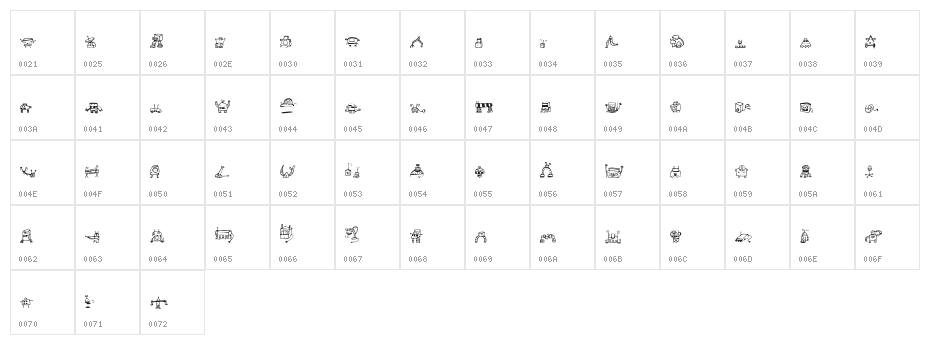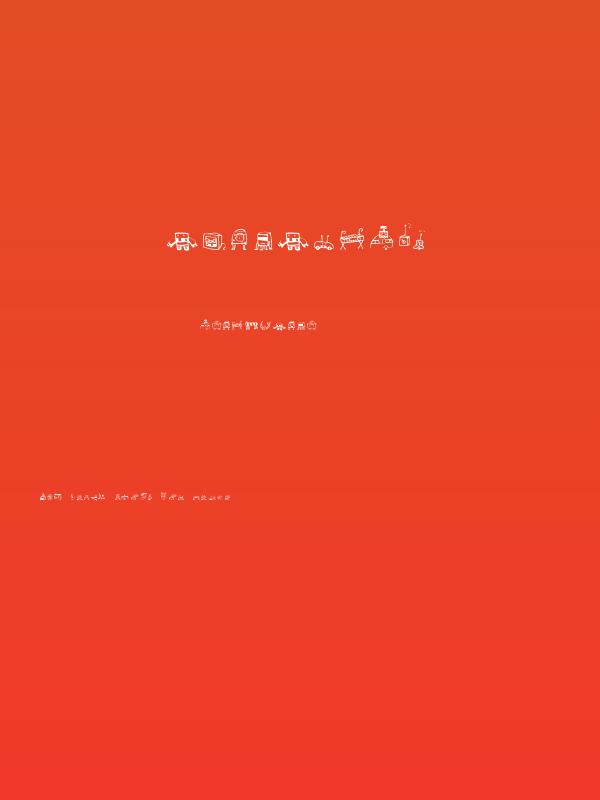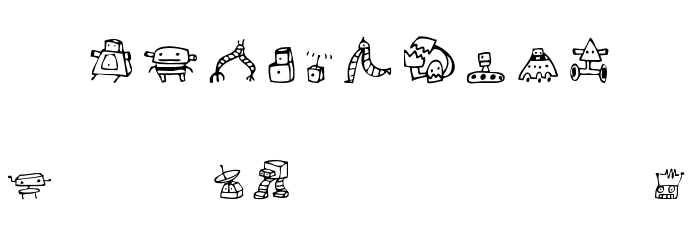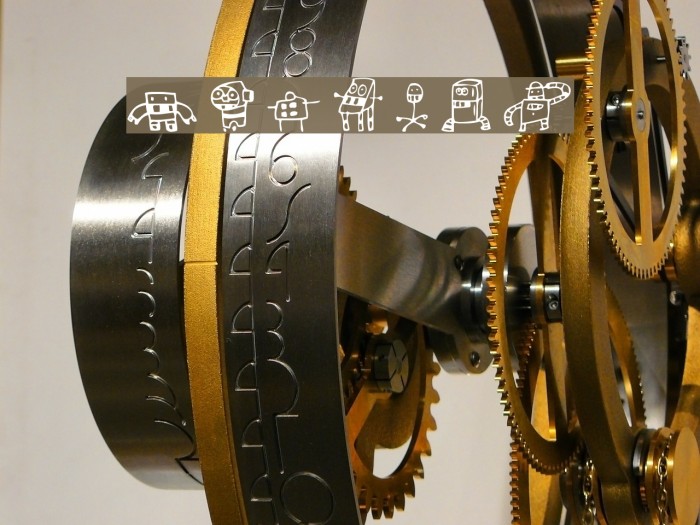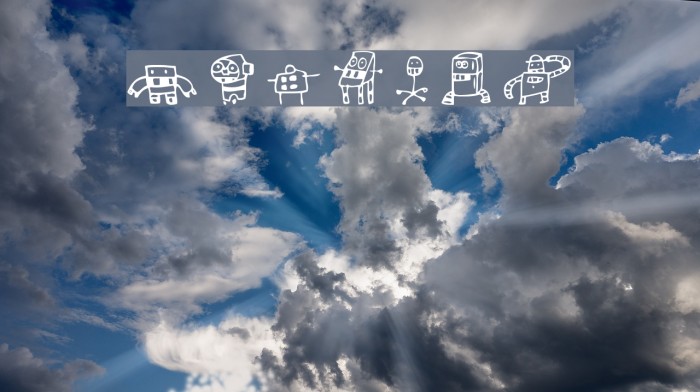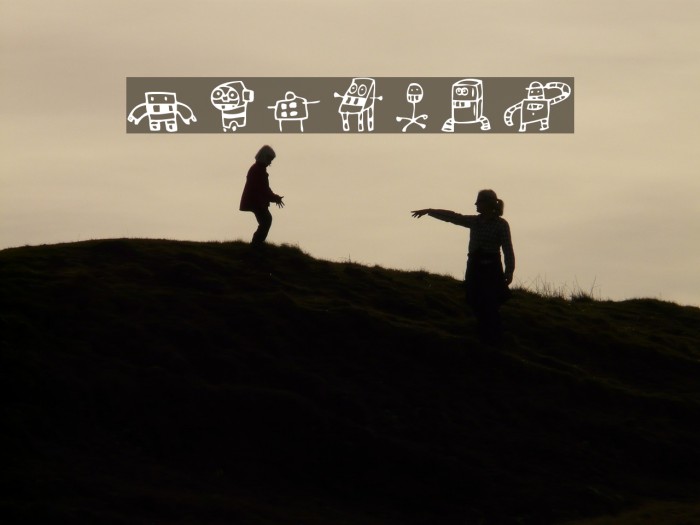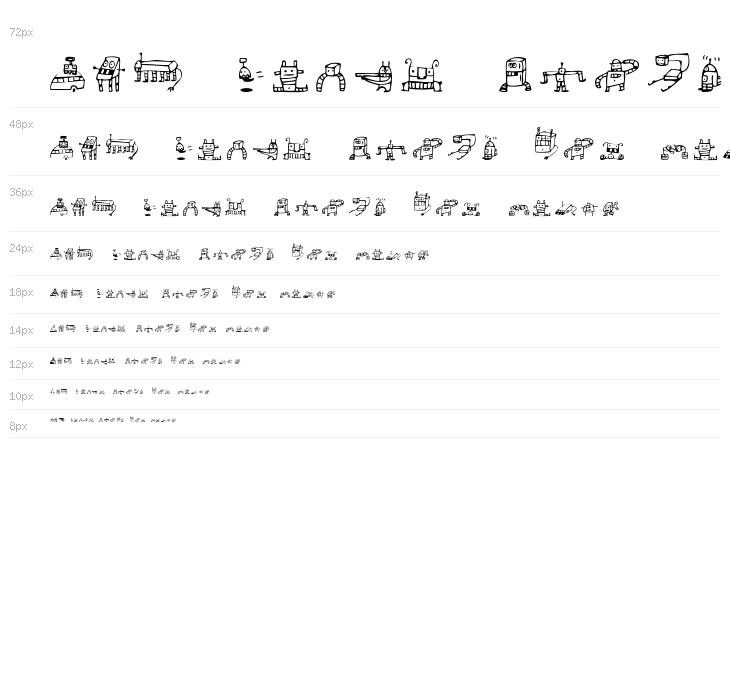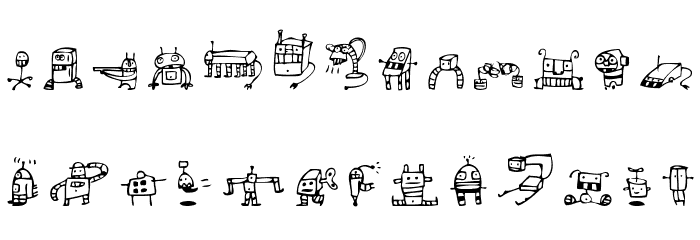
Alphabots Font
Alphabots Description
This font features a playful and whimsical design, where each character is represented by a unique robot illustration. The characters are highly stylized, with each letter and number depicted as a distinct robotic figure, complete with various mechanical elements like gears, antennas, and wheels. The overall appearance is cartoonish and imaginative, making it ideal for projects that require a fun and creative touch. The font is not meant for readability in traditional text settings but rather for decorative purposes where each character can stand alone as a piece of art.